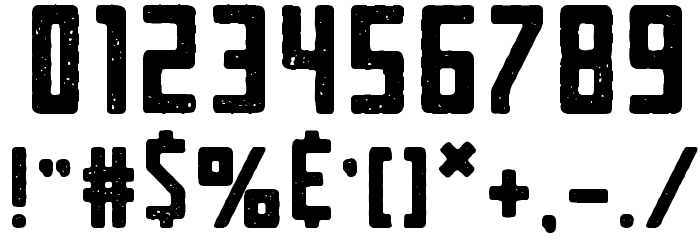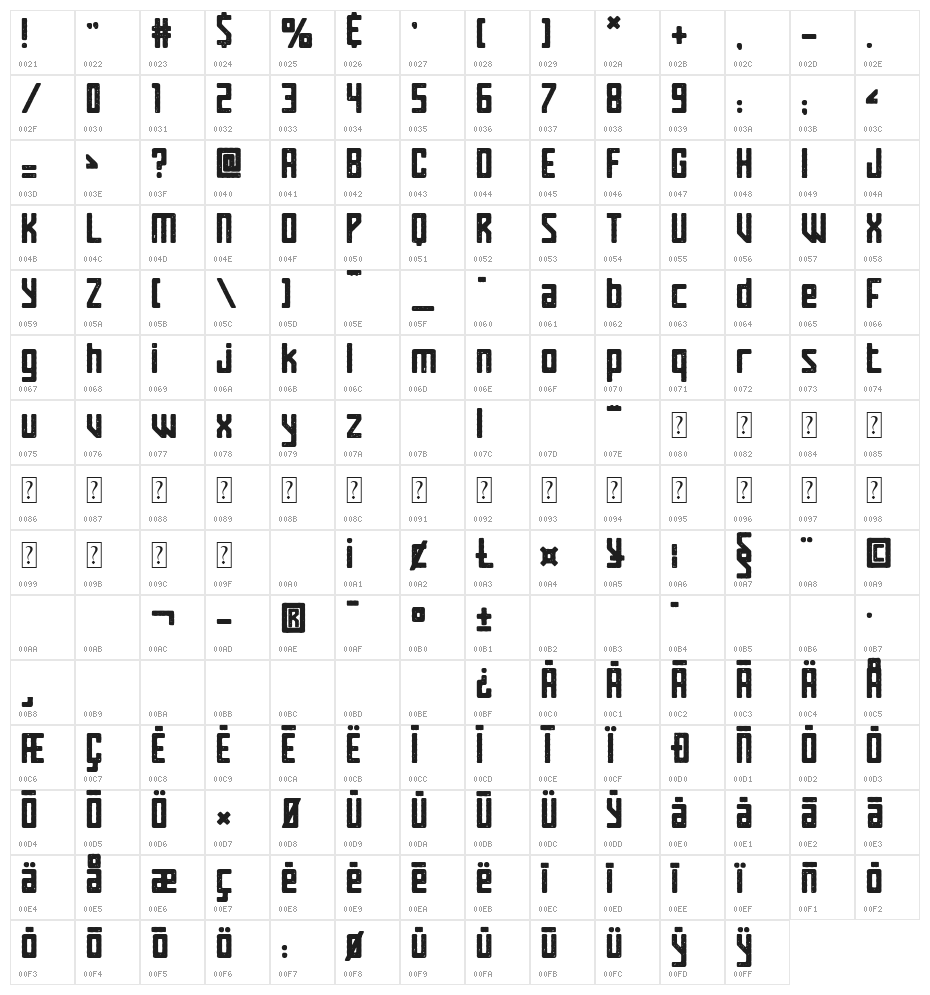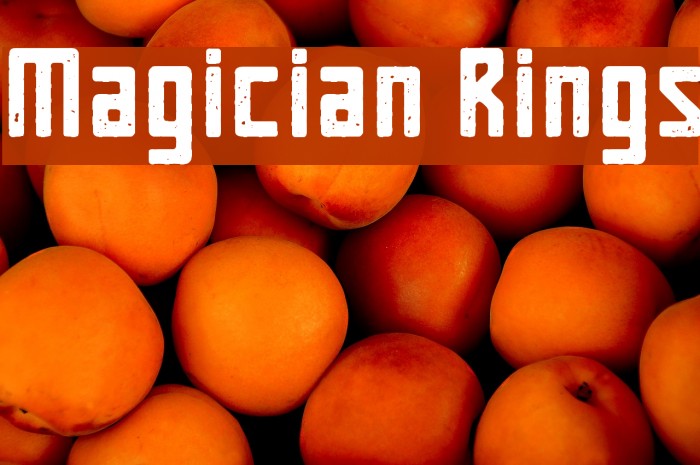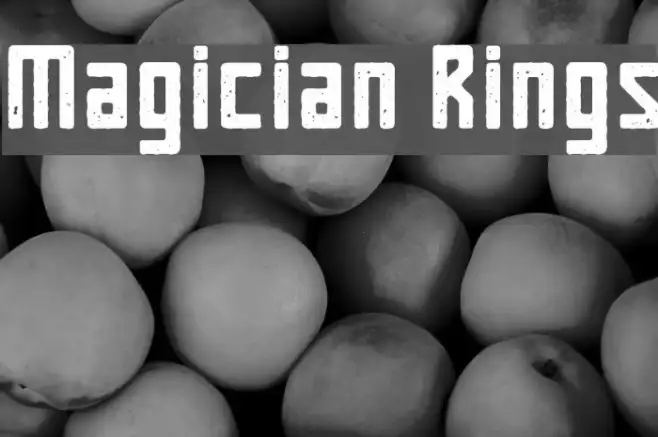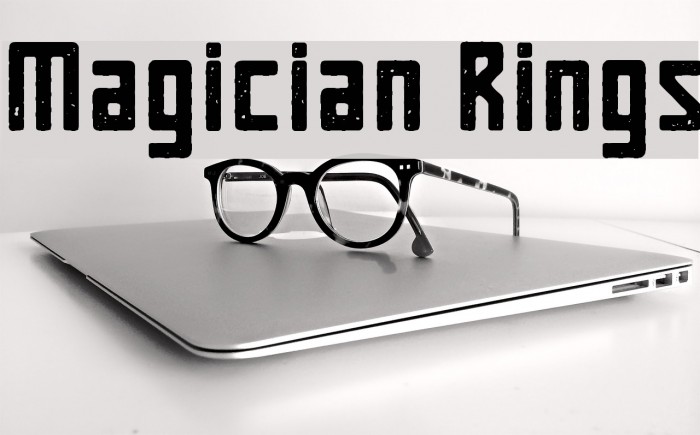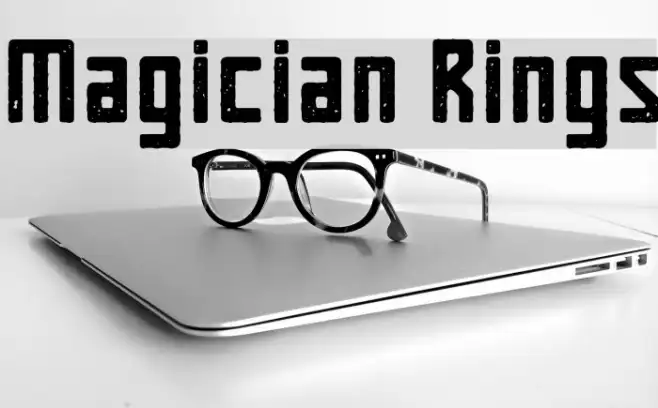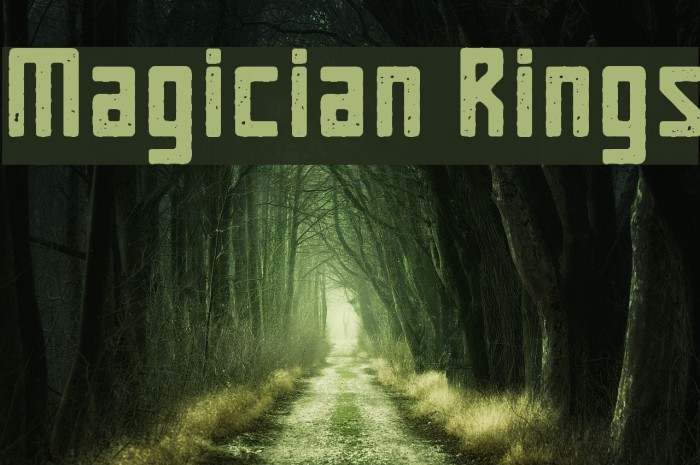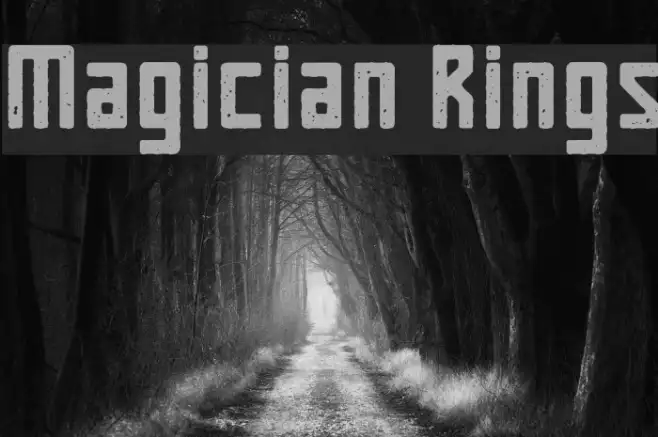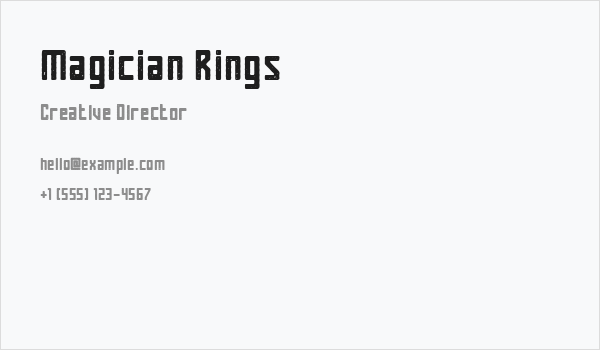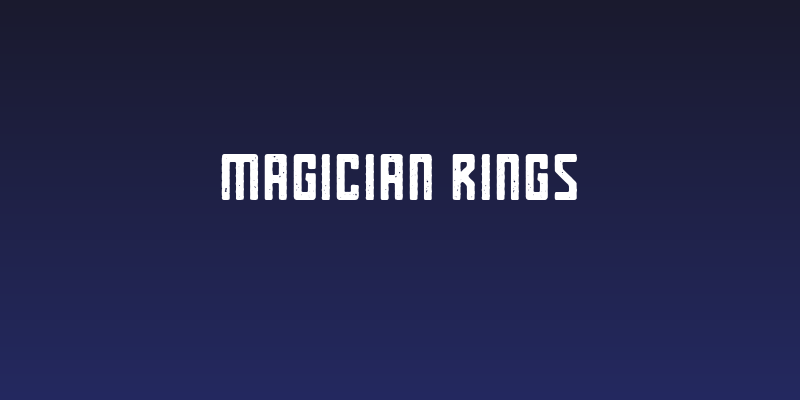
Magician Rings Font
Magician Rings Description
This font features a bold, geometric design with a distressed texture, giving it a vintage and rugged appearance. The characters are blocky and angular, with consistent stroke widths that contribute to a strong, impactful look. The uppercase and lowercase letters maintain a uniform style, while the numbers and special characters complement the overall aesthetic. The distressed effect adds a unique character, making it suitable for designs that require a rustic or industrial feel. Its bold presence makes it ideal for attention-grabbing headlines or titles.
| Proposed Projects | Ideal for posters, logos, branding, and packaging designs that require a vintage or industrial touch. |